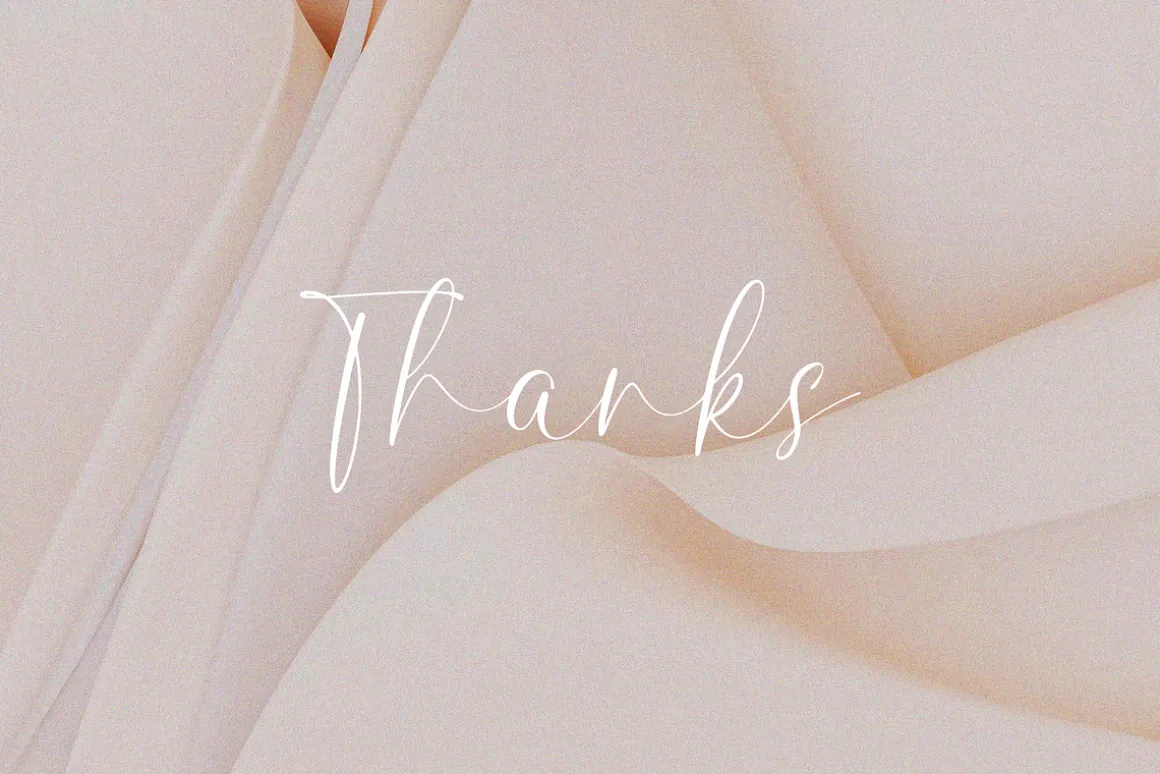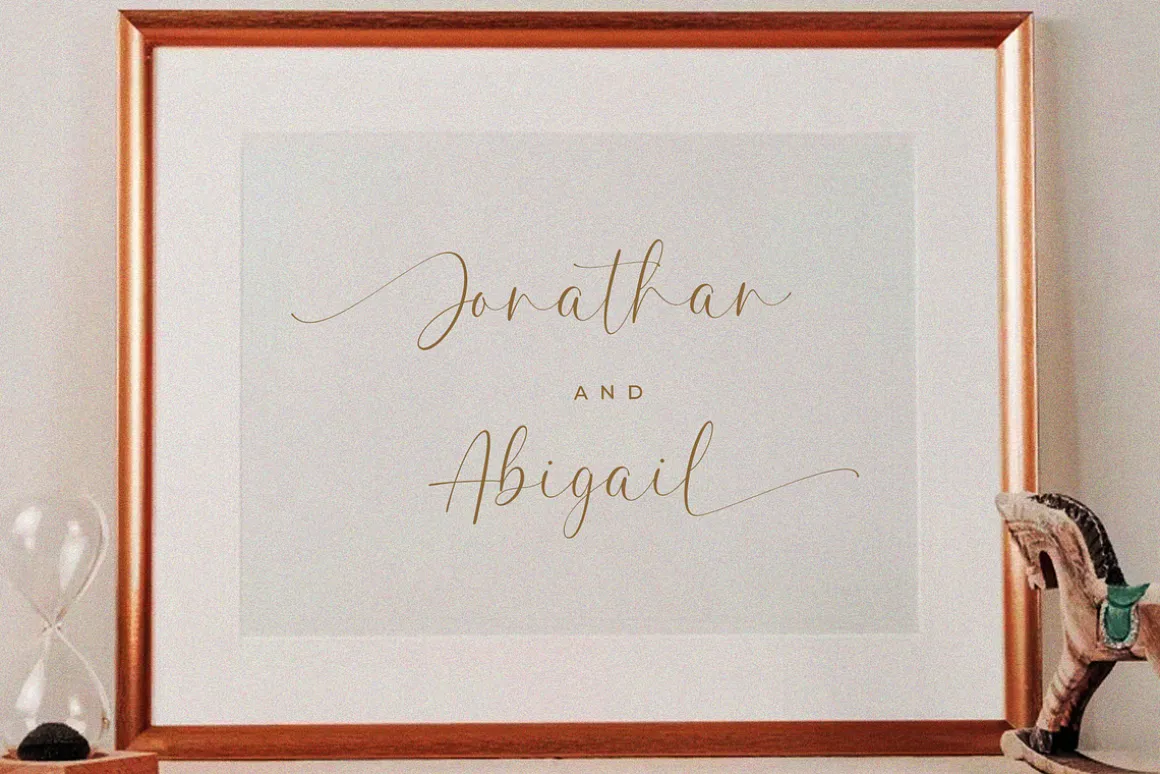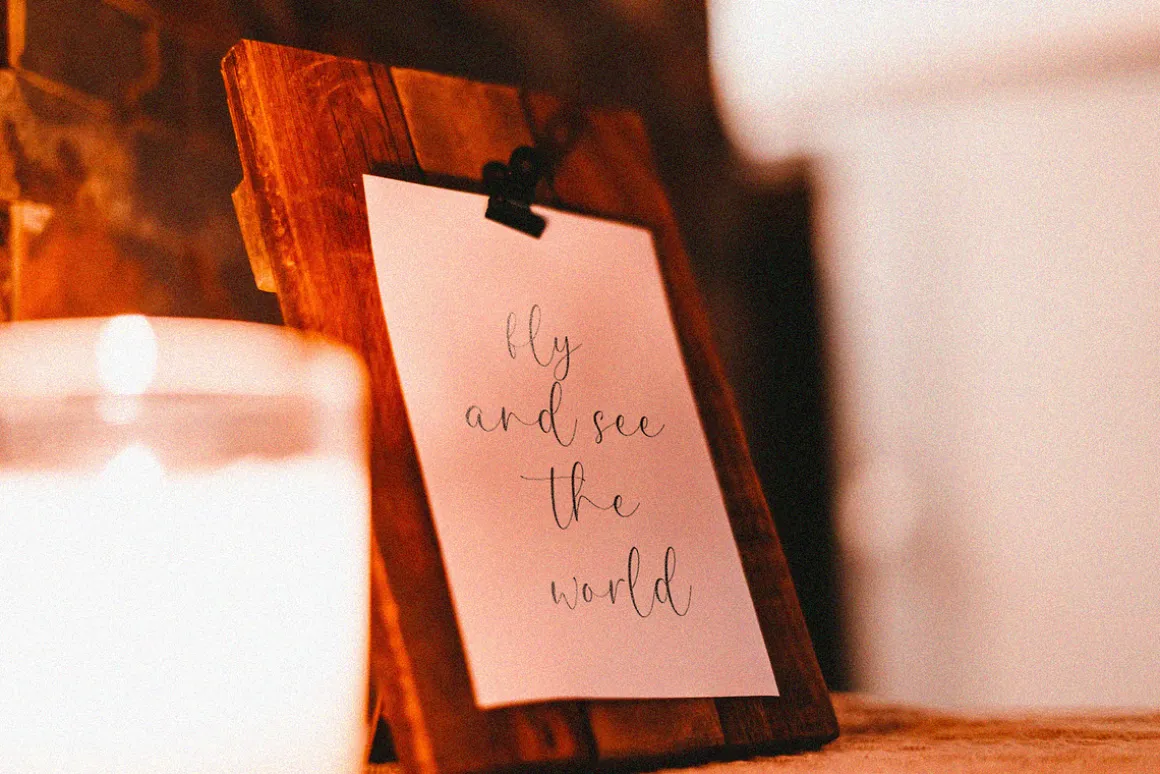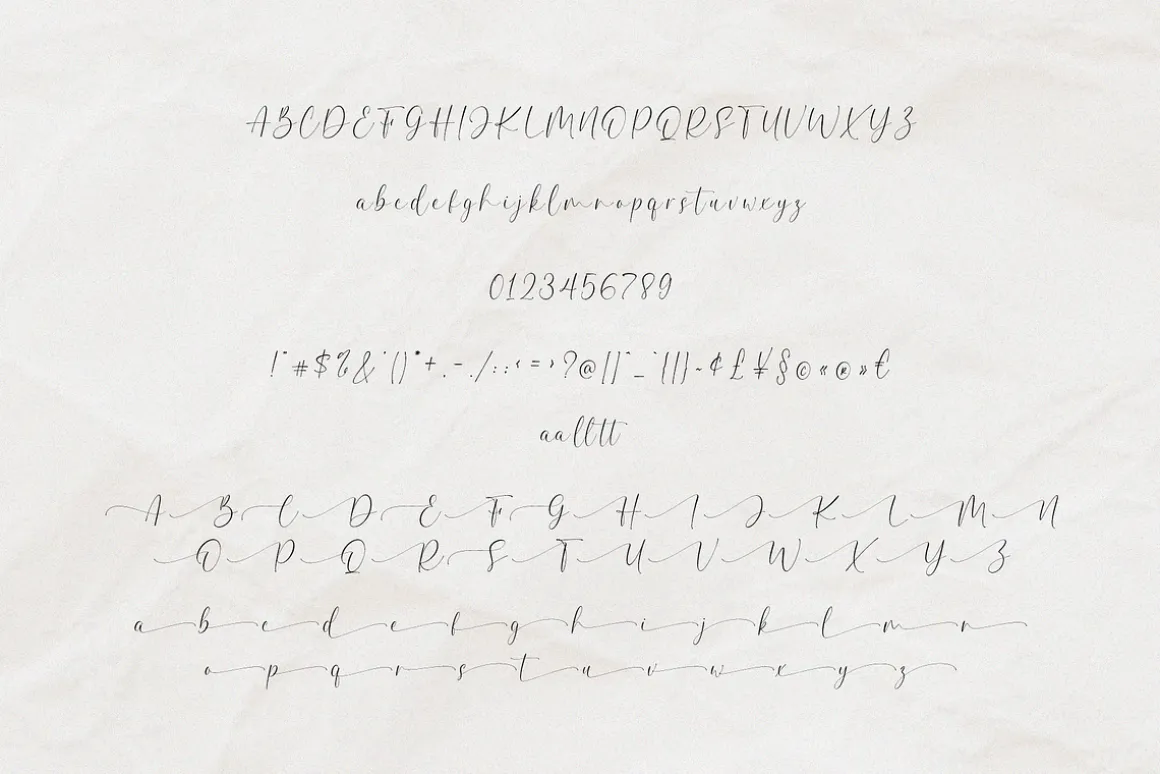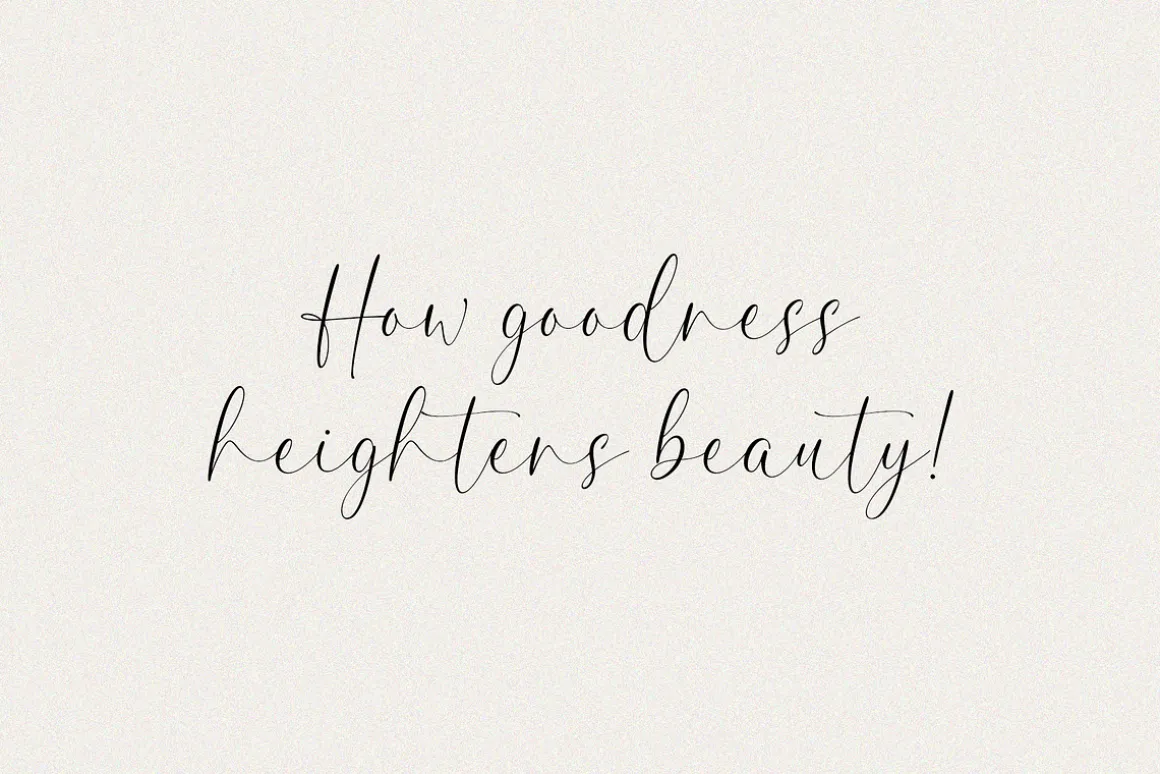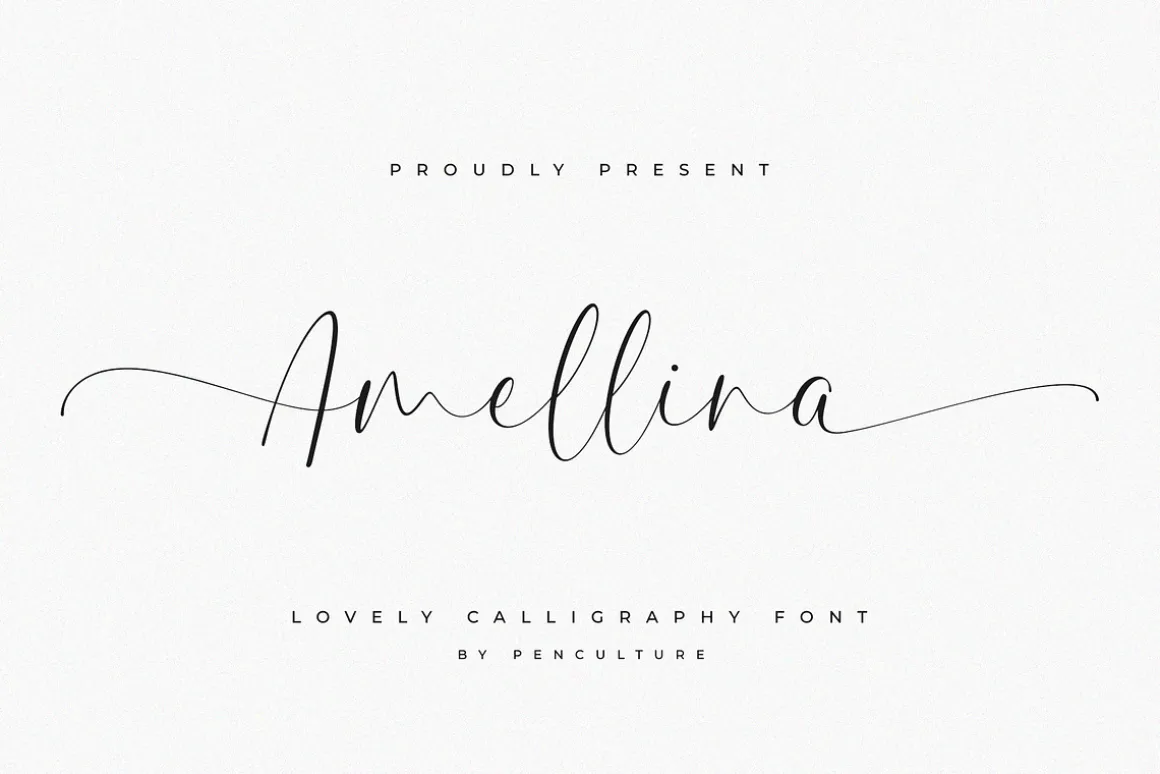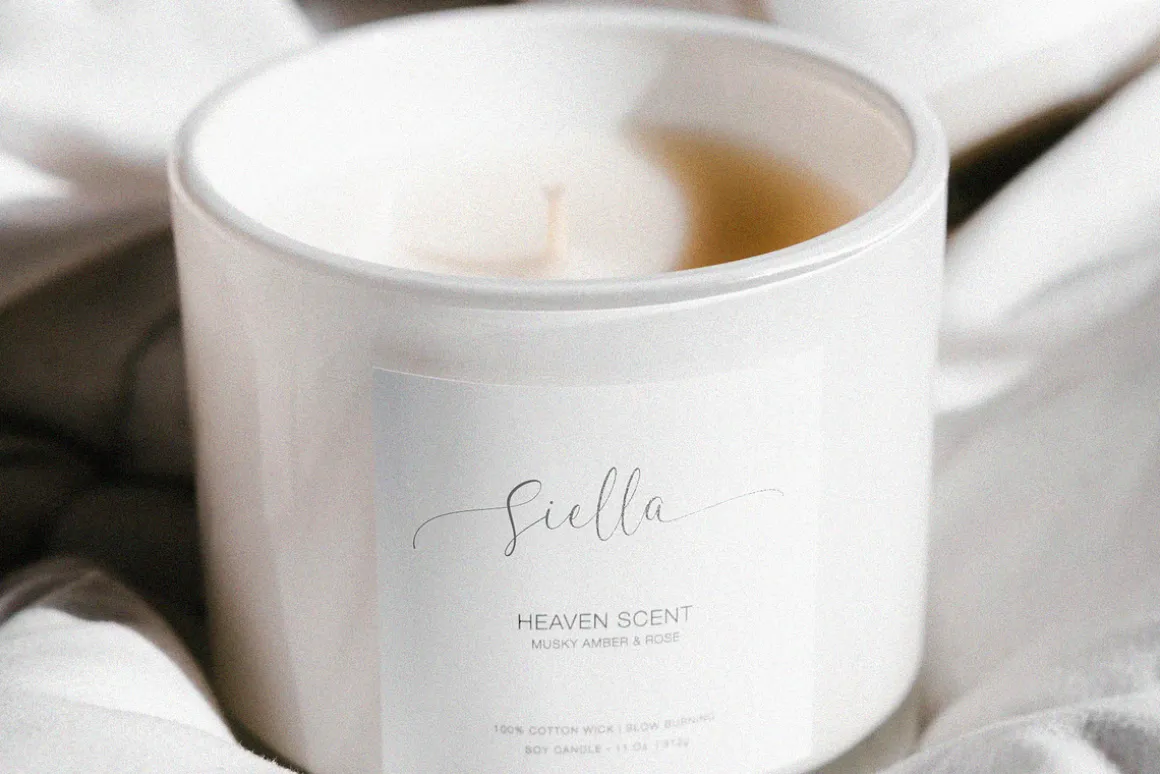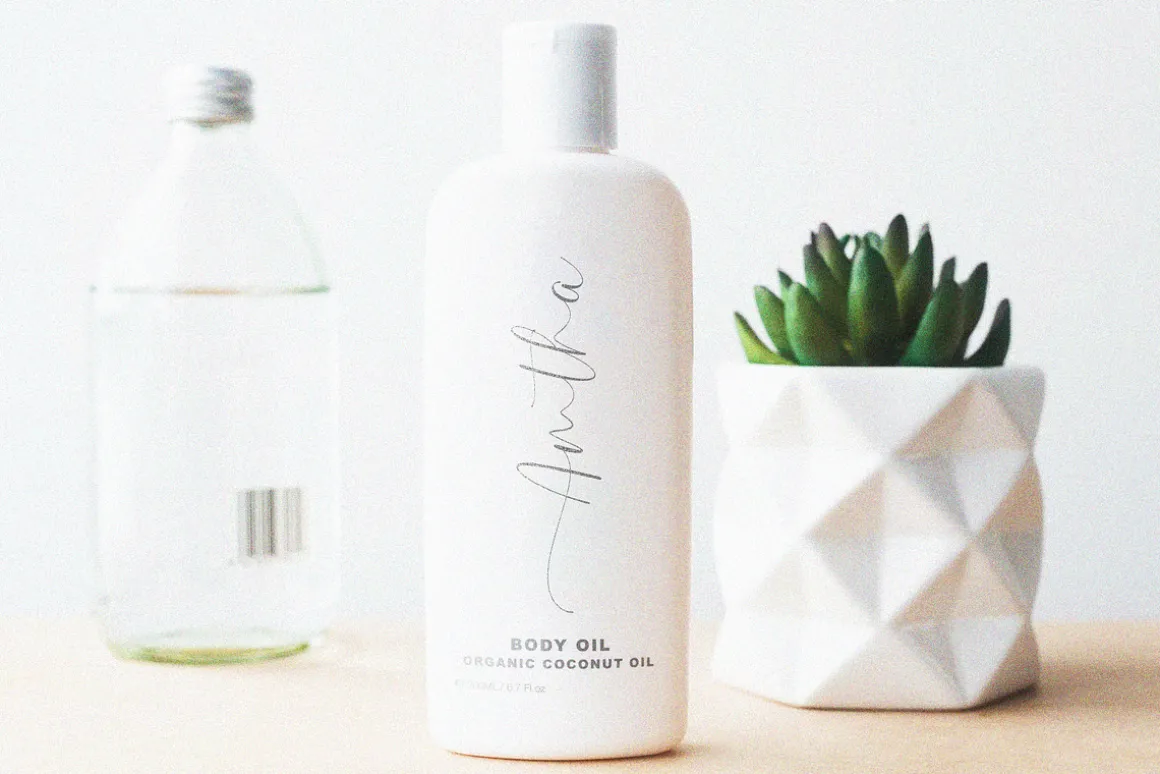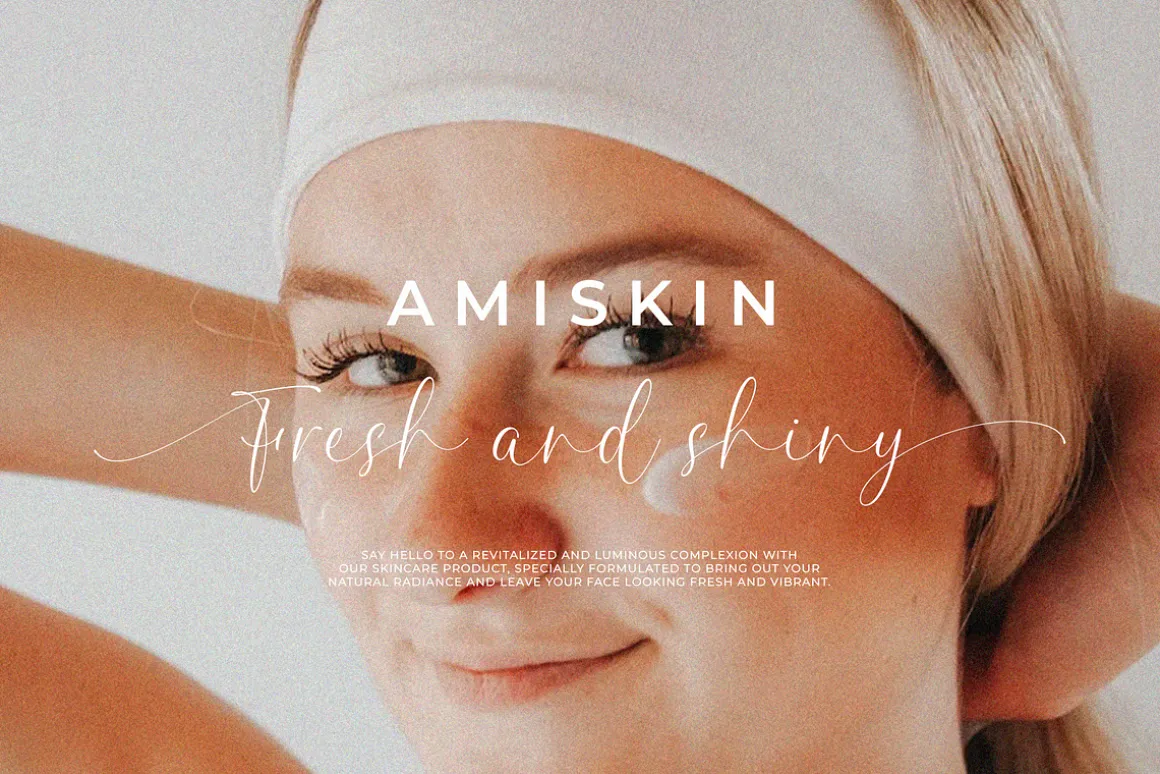
Proudly present “Amellina – A lovely Calligraphy Font”
Amellina is a lovely font that come with beautiful beginning and ending swashes. The beginning swashes come in uppercase letter and the ending swashes in lowercase letter.this font ca be use in various design project like a invitation, branding, poster and many others.
What inside and what will you get:
- Fully uppercase and lowercase
- Number and punctuation
- Ligature
- Beginning and ending swashes